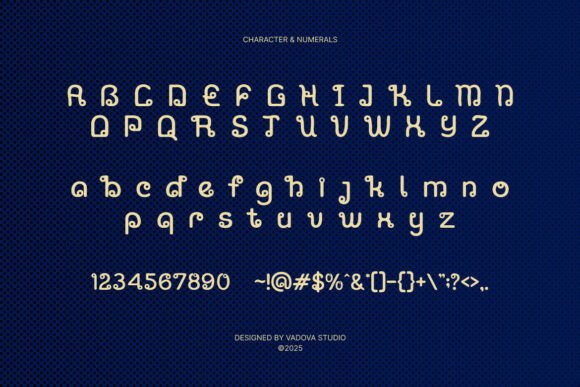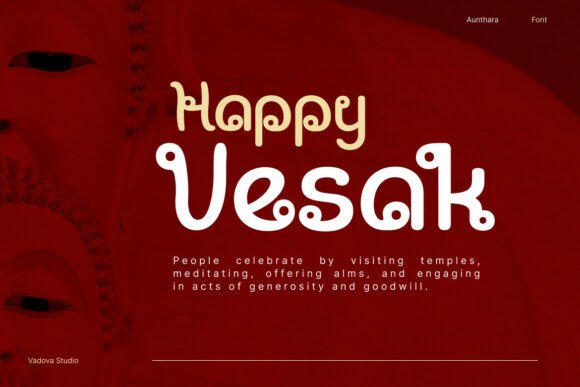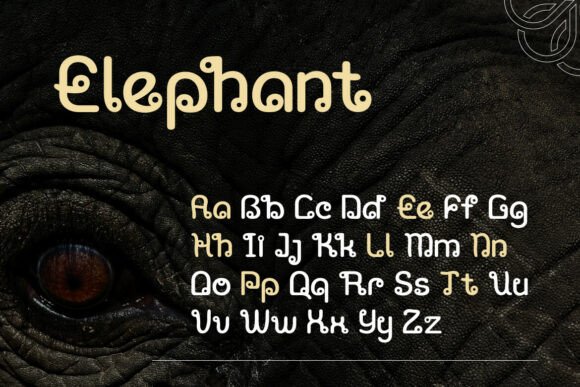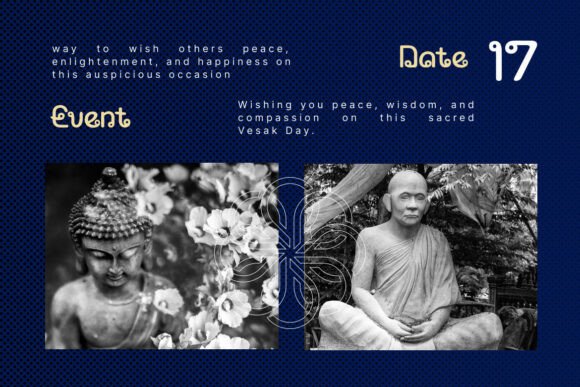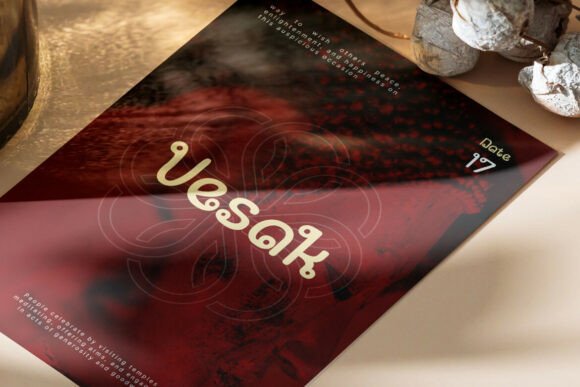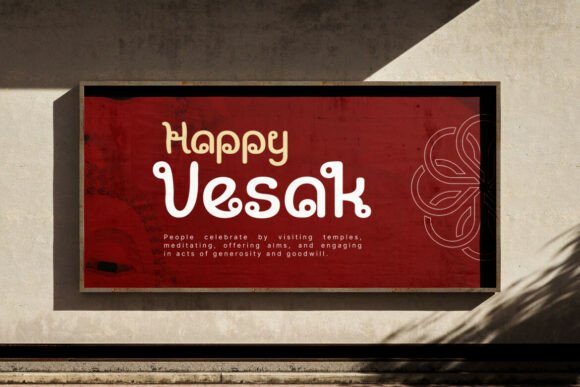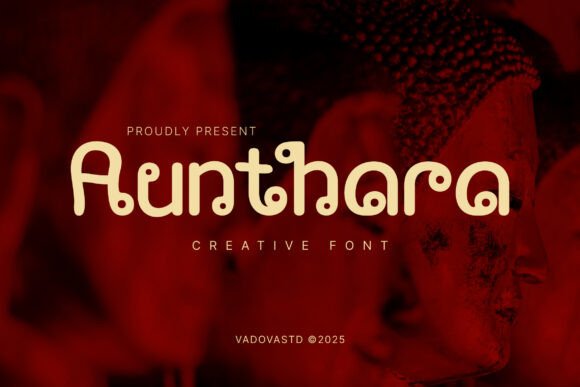
Aunthara Font: Elevate Your Designs with Traditional Asian Elegance
In the realm of typography, few fonts manage to capture the essence of traditional Asian aesthetics while exuding modern elegance. Aunthara Font is one such remarkable typeface that seamlessly blends cultural nuances with contemporary design sensibilities. Inspired by the ornate details and smooth curves characteristic of Asian art and architecture, Aunthara presents a unique typographic voice that is both distinctive and captivating.
The Inspiration Behind Aunthara
Aunthara’s design is rooted in the rich cultural heritage of Asia, where traditional typography often features intricate patterns, rounded forms, and soft terminals. The font’s creator aimed to encapsulate these elements, infusing them with a modern twist to make the typeface versatile and highly legible. The result is a decorative display typeface that not only pays homage to its cultural origins but also appeals to contemporary design sensibilities.
Key Features of Aunthara Font
- Rounded Forms and Soft Terminals: Aunthara’s rounded forms and soft terminals lend it a friendly and approachable feel, making it perfect for designs that require a touch of warmth and elegance.
- Distinctive Ornamental Details: The font’s ornamental details are meticulously crafted to reflect traditional Asian motifs, adding a layer of cultural depth and authenticity to any design.
- Smooth Curves: Aunthara’s smooth curves enhance its readability and aesthetic appeal, ensuring that it stands out in various visual compositions.
Optimal Use Cases for Aunthara Font
Aunthara is specifically designed for use in headlines, titles, and creative layouts where a decorative touch is desired. Its unique typographic voice and cultural nuance make it an excellent choice for:
- Branding: Aunthara can add a distinctive and memorable element to brand identities, especially for businesses looking to incorporate Asian cultural elements into their design.
- Visual Compositions: The font’s decorative nature makes it ideal for use in posters, flyers, brochures, and other visual materials that require a standout typographic solution.
- Packaging: Aunthara’s elegant and ornate details can enhance product packaging, making it more appealing to consumers and conveying a sense of luxury or tradition.
Why Choose Aunthara Font?
Aunthara Font offers a unique combination of traditional Asian aesthetics and modern design principles, making it a valuable addition to any designer’s toolkit. Here are a few reasons why Aunthara stands out:
- Cultural Significance: Aunthara provides a way to incorporate Asian cultural elements into designs, making it a great choice for projects that require a nuanced and respectful approach to cultural representation.
- Versatility: Despite its decorative nature, Aunthara is surprisingly versatile, capable of being used in a wide range of design contexts, from digital interfaces to print materials.
- Elegance and Readability: The font’s smooth curves and clear letterforms ensure that it remains highly legible, even at smaller sizes, making it suitable for use in various applications.
Aunthara Font represents a beautiful fusion of traditional Asian aesthetics and modern typographic design. Its distinctive ornamental details, smooth curves, and cultural nuance make it an exceptional choice for designers and crafters looking to add a touch of elegance and cultural depth to their projects. Whether you’re working on branding, visual compositions, or packaging, Aunthara is sure to elevate your designs and leave a lasting impression.